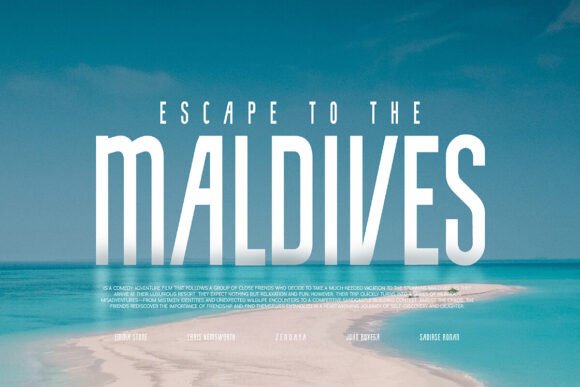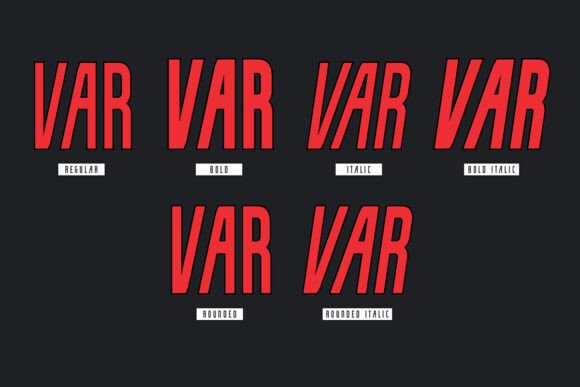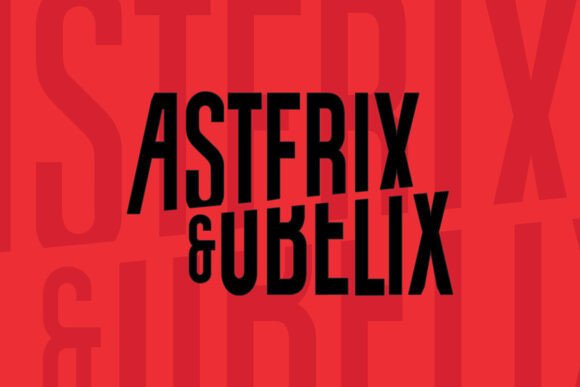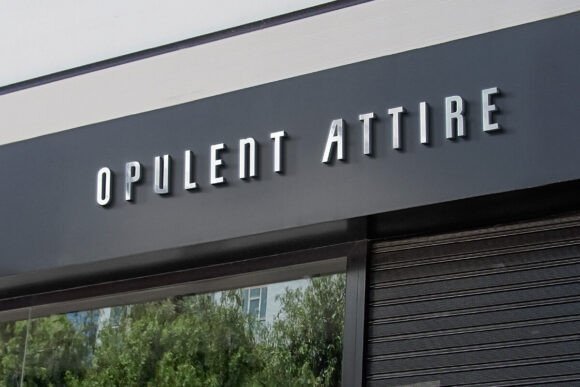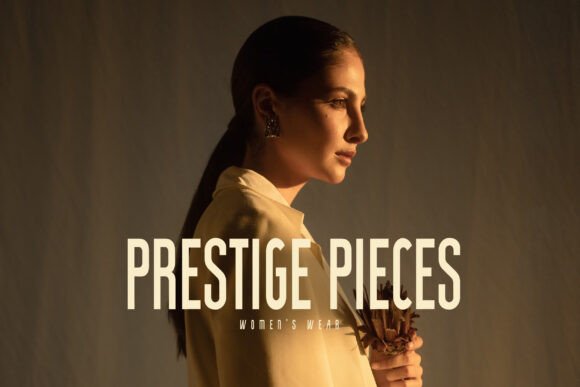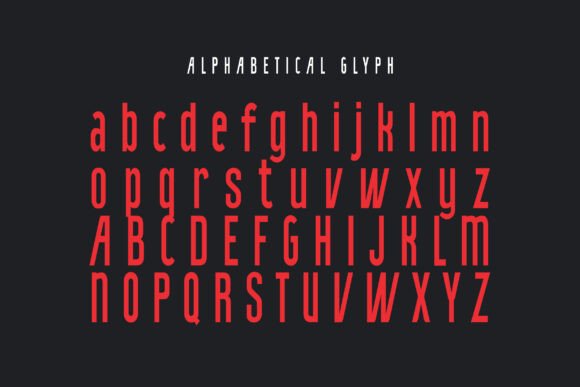
Introduction to Paris Sleek Font
Remember that moment when you stumbled upon the perfect font for your design project? The one that perfectly captures the essence of your creative vision and elevates your work to new heights? For designers seeking that elusive perfect match, we’re excited to introduce the Paris Sleek Font – a modern, condensed masterpiece that embodies the sophistication and elegance of the City of Light.
With its sleek, statuesque letters and subtle lines, the Paris Sleek Font is the epitome of refined design. Whether you’re working on a luxury fashion branding project, film title, or any other creative endeavor that demands a touch of high-end sophistication, this font is sure to deliver. Its compressed form communicates effectively without overpowering, making it an ideal choice for prominent headlines or compact designs seeking attention without overwhelming the senses.
Key Features of Paris Sleek Font
- Unique, elegant design style with a transparent background for seamless integration
- Perfect for use in logos, branding materials, and other design elements where a sophisticated, modern look is desired
Honest Review: Paris Sleek Font
As a designer, I’m always on the lookout for high-quality fonts to elevate my creative projects. Recently, I had the chance to try out the Paris Sleek Font, and I must say it’s been a pleasant surprise.
- Beautifully designed with a sleek and modern aesthetic, perfect for luxury and high-end branding projects.
- High quality and crisp font, ideal for printing and digital use.
- Transparent background, making it easy to use as a design resource in various creative projects.
Any limitations ⚠️
- May not be suitable for projects requiring a bold or playful font.
- Limited character set, which could be a drawback for some users.
Overall, I’m quite impressed with the Paris Sleek Font. Its high quality and sleek design make it a great addition to any design resource library. While it may have some limitations, I think it’s a great choice for designers looking for a sophisticated and modern font.
The Paris Sleek Font is a high-quality design resource that can be used in a variety of creative projects. With its transparent background, it’s perfect for use in digital designs, such as social media graphics, flyers, and brochures.
The Paris Sleek Font is commonly used in creative projects, such as:
- Flyers and brochures
- Posters and advertisements
Is the Paris Sleek Font suitable for high-quality design projects?
Yes, the Paris Sleek Font is designed to be high-quality and versatile, making it suitable for a wide range of creative projects, from branding and marketing materials to digital products and print designs.